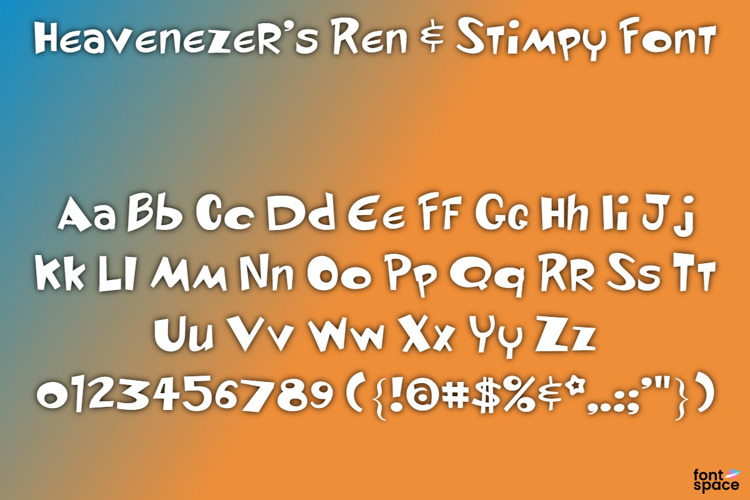
Heavenezer's Ren & Stimpy Font
A whimsical typeface by Heavenezer based on the distinctive lettering from the controversial Nicktoon show, The Ren & Stimpy Show.